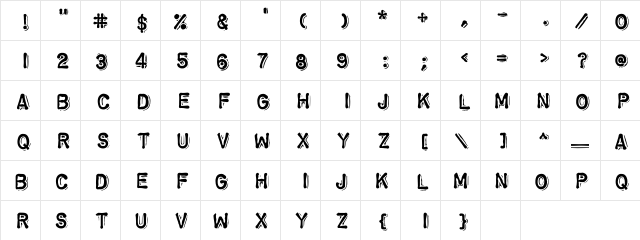
Chromosome Heavy Regular
Chromosome Heavy is a composed and adaptable typeface that performs quietly and consistently across a wide range of design contexts.